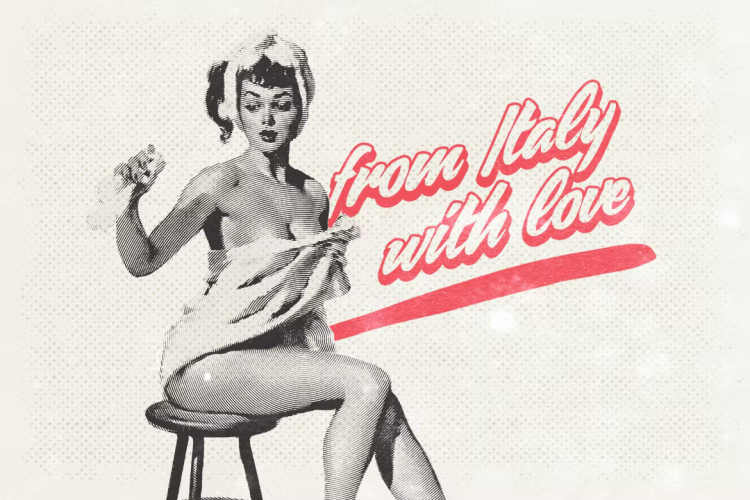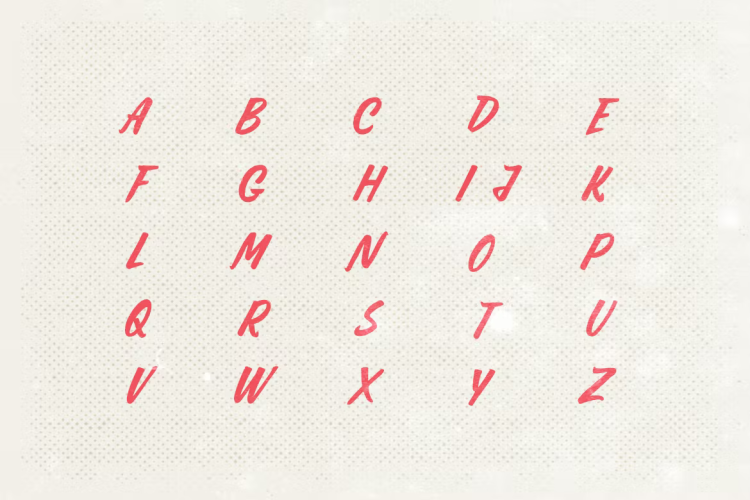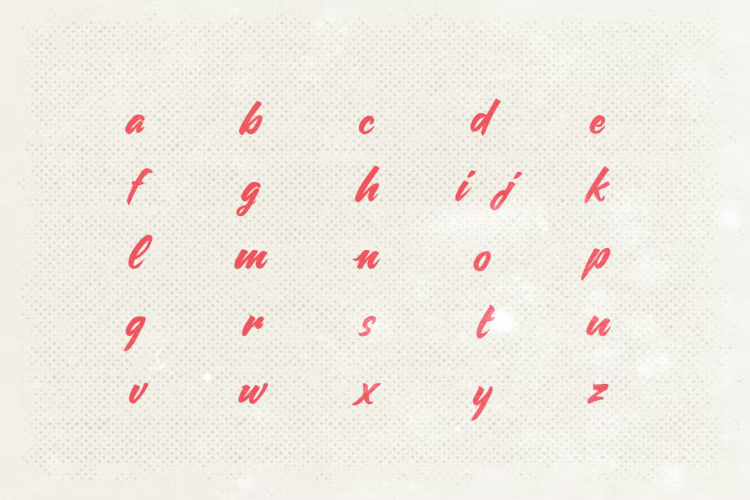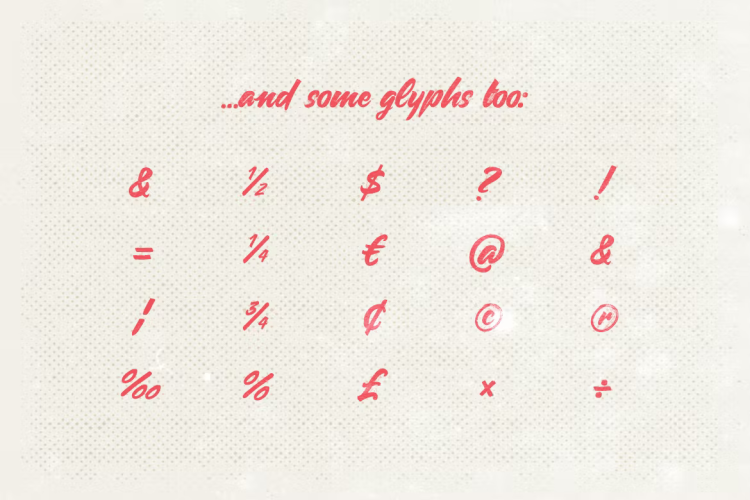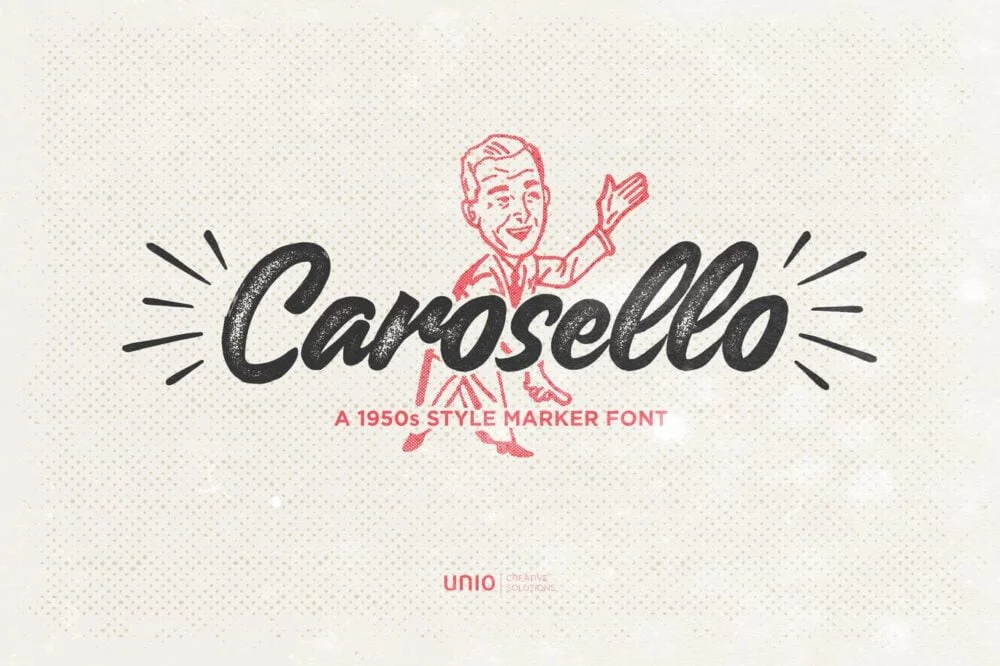
Carosello Font
Carosello Font Truly inspired by vintage ads, created with a real sharpie to display common hand-written imperfections while preserving typical glyphs style of that historical period.
This hand-made font is highly versatile and allows you to create stunning 1950s hand-lettered quotes, inspirational phrases and vintage designs in a matter of seconds.
Carosello Font brings a personal, handwritten warmth to invitations, menus and place cards.
Craft brands — coffee, cosmetics, bakery — use scripts like Carosello Font for signature-style logos and labels.
Pair Carosello Font with a plain sans for quotes, stories and Pinterest pins that feel handmade.